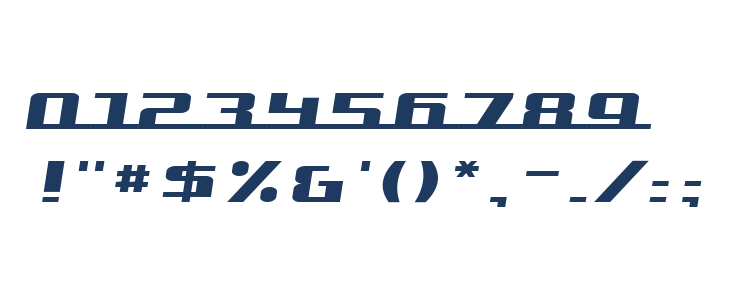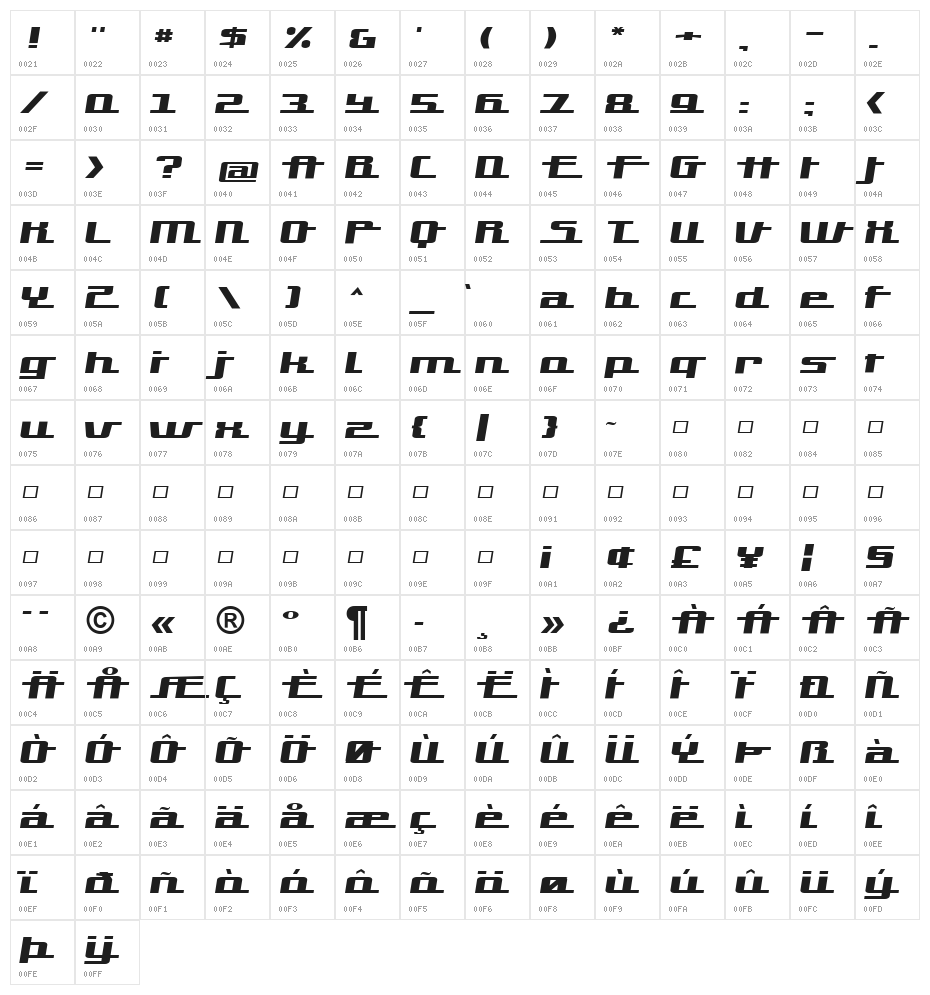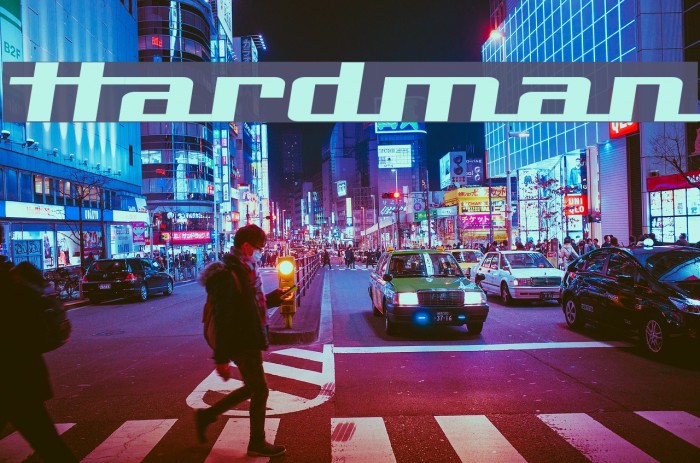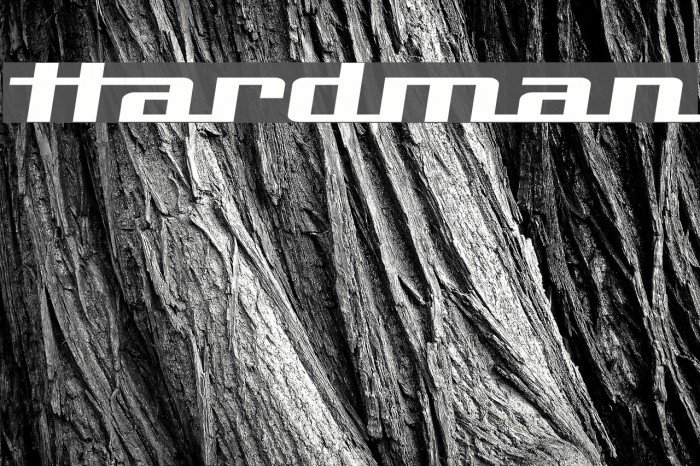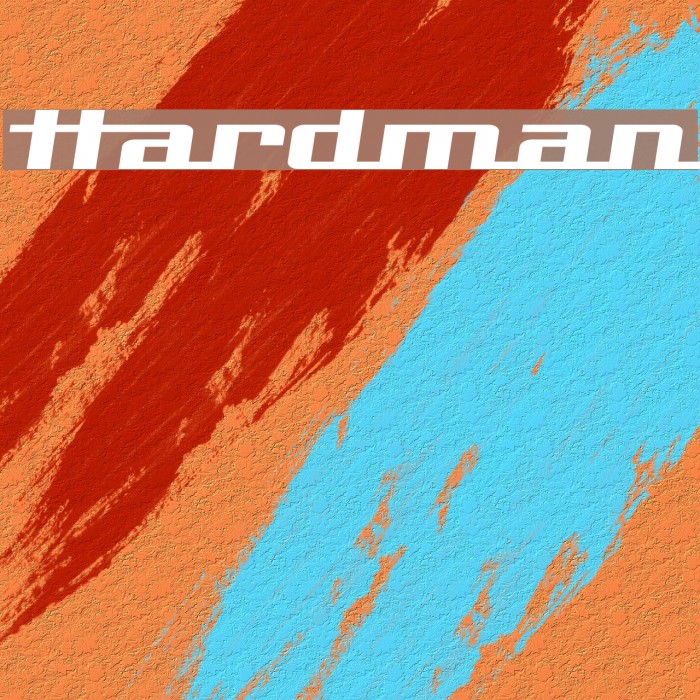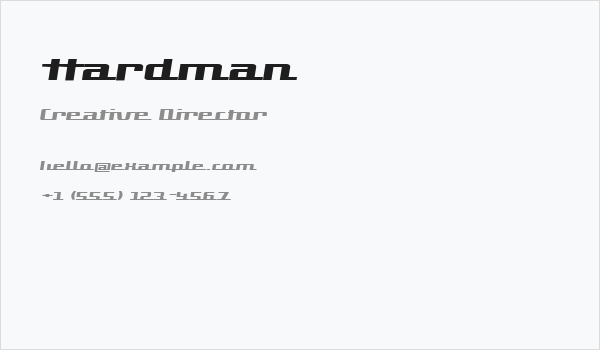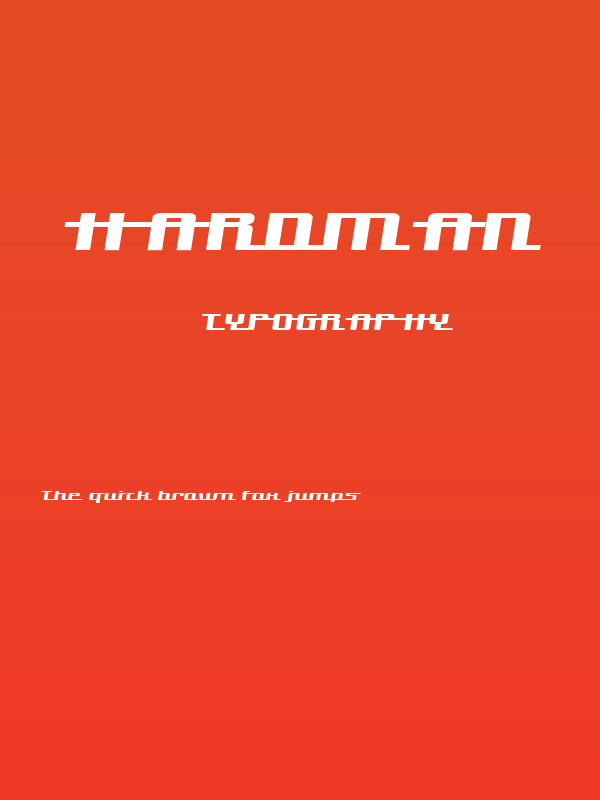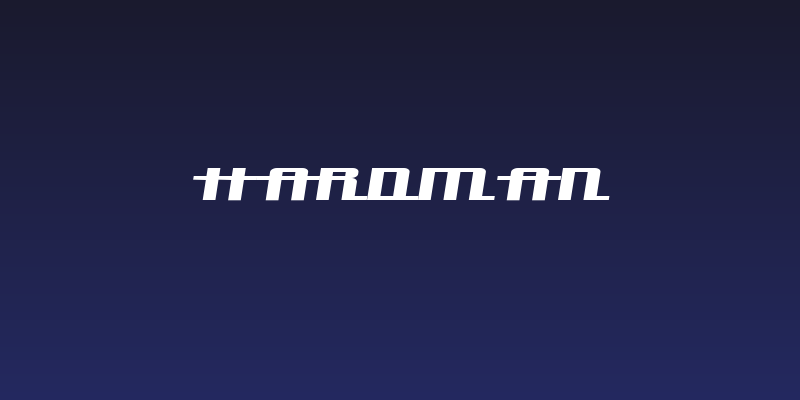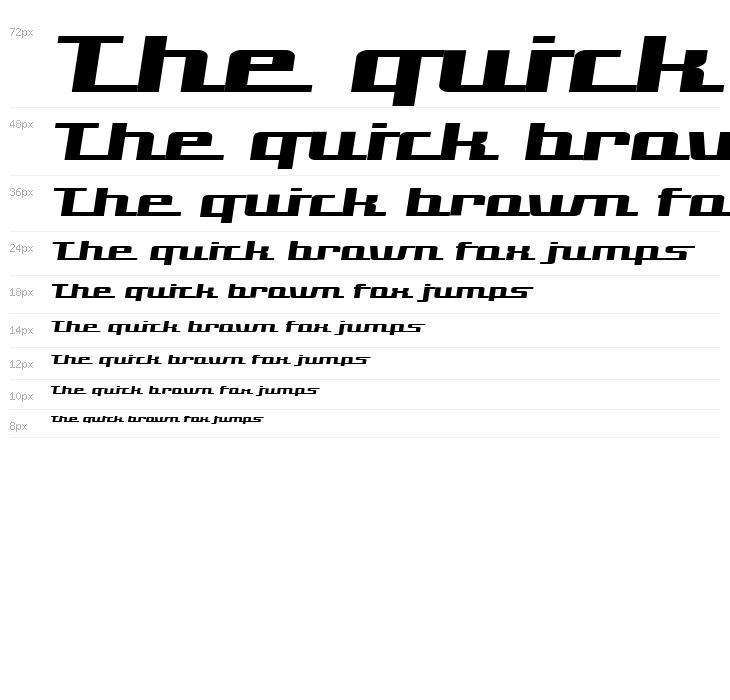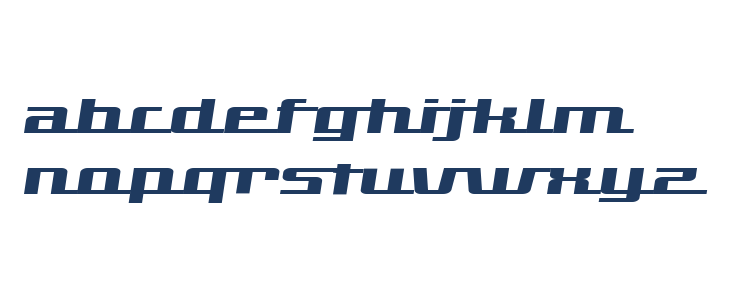
Hardman Font
Hardman Description
This font features a bold and angular design, characterized by its sharp edges and futuristic appearance. The uppercase letters are particularly striking, with a strong geometric influence that gives them a modern and industrial feel. The lowercase letters maintain this aesthetic, offering a cohesive look across the typeface. The numerals are equally bold and angular, ensuring consistency throughout. Special characters are designed to match the overall style, making this font suitable for projects that require a strong visual impact. The font's unique style makes it ideal for branding, headlines, and any design work that aims to convey a sense of modernity and strength.
| Proposed Projects | Ideal for branding, headlines, posters, and any design work requiring a modern and strong visual impact. |